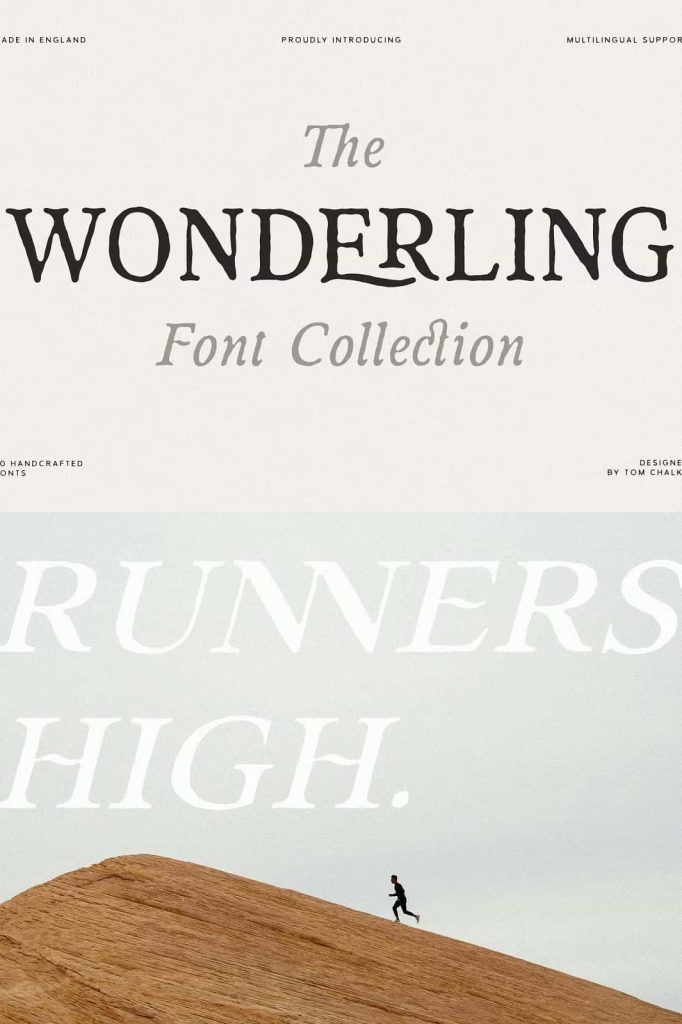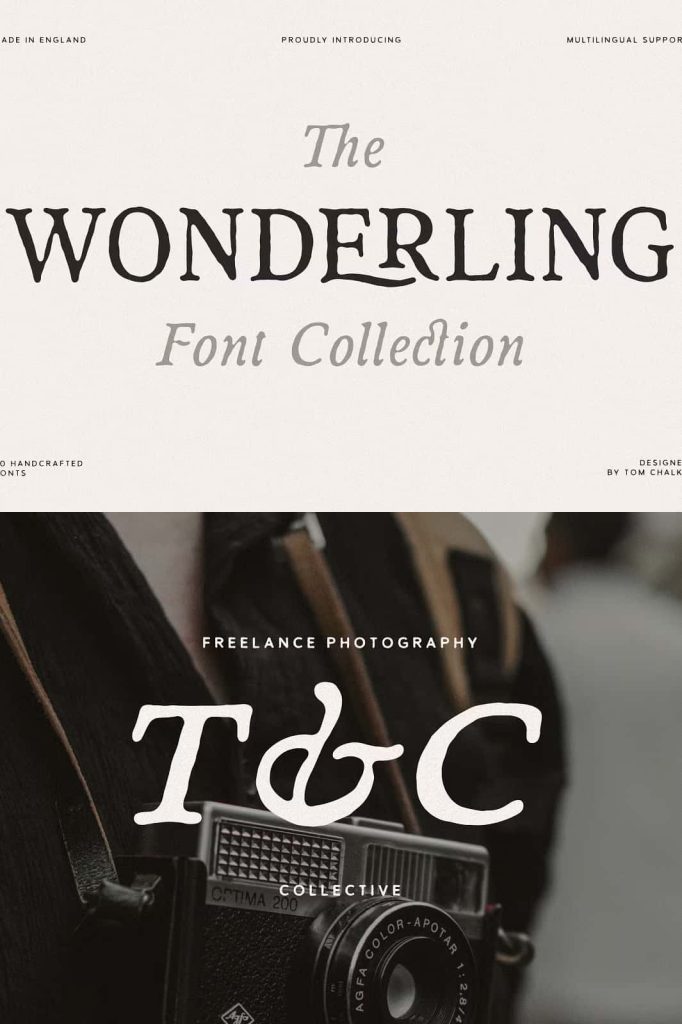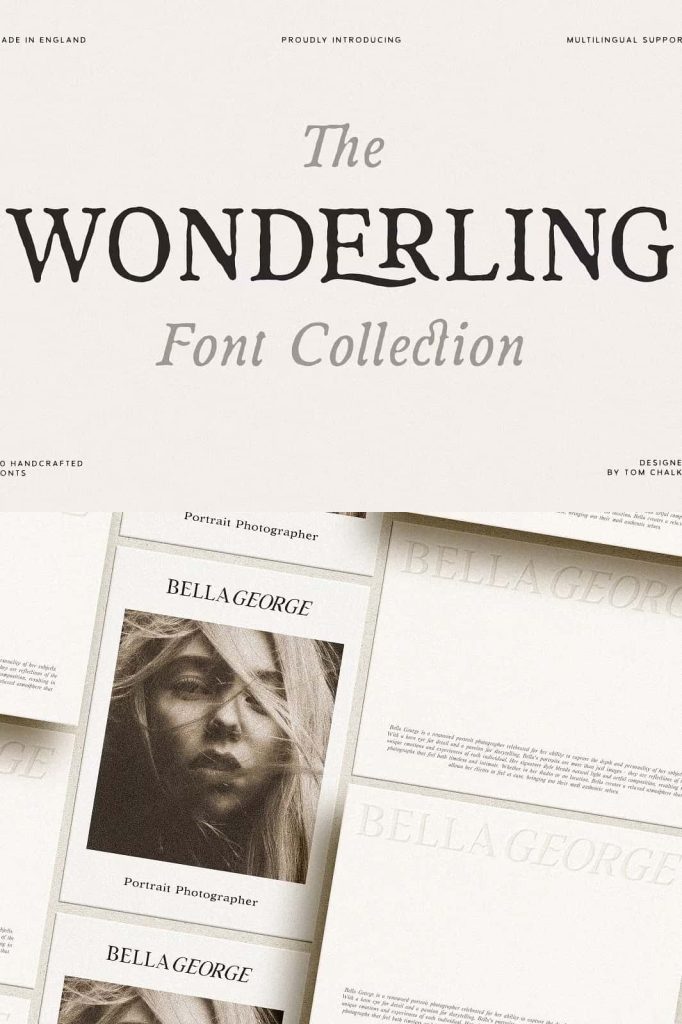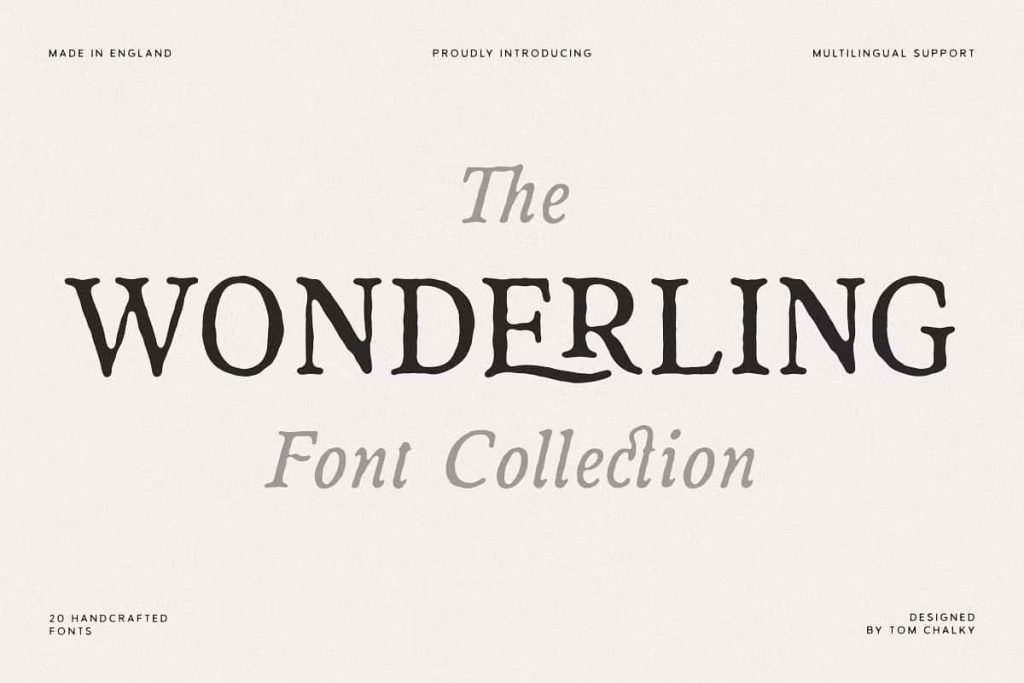
Wonderling: A Timeless Serif Font Collection with Handcrafted Charm
Wonderling brings together the elegance of classic serif typography and the warmth of handcrafted design. This thoughtfully created font collection captures the essence of traditional letterforms while adapting them for modern creative needs. Designers who seek a balance between refinement and personality will find Wonderling a versatile and inspiring solution.
Rather than simply revisiting historical styles, Wonderling actively reinterprets them. It transforms the beauty of classic serif typefaces into a flexible system that works across multiple design contexts. This approach allows designers to create visuals that feel both timeless and fresh, without sacrificing usability or clarity.
Inspired by Classic Serif Traditions
Wonderling draws strong influence from serif typefaces of the past—fonts that shaped editorial design, publishing, and branding for generations. These traditional forms emphasize balance, proportion, and readability. Wonderling preserves these qualities while introducing subtle handcrafted details that add character and uniqueness.
This combination of structure and artistry allows the font to maintain a refined appearance while feeling approachable. Designers can use Wonderling to evoke a sense of heritage, trust, and sophistication in their projects.
Key Features of Wonderling Font Collection
Elegant Serif Structure
Wonderling features well-defined serifs that enhance readability and visual flow. Each letterform follows a balanced structure, ensuring consistency across the entire typeface. This elegance makes the font suitable for both formal and creative applications.
Handcrafted Details
The collection incorporates subtle handcrafted elements that give it a distinctive personality. These details add warmth and authenticity, helping designs feel more personal and engaging. Unlike overly mechanical fonts, Wonderling carries a human touch that resonates with audiences.
Adaptable and Versatile Styles
Wonderling is designed as a flexible collection, allowing designers to explore different visual directions. Its adaptability makes it easy to use across various projects, from minimal layouts to more decorative compositions. This versatility ensures that the font remains relevant in diverse design environments.
Wide Range of Creative Applications
Wonderling performs exceptionally well across multiple design disciplines. Its refined yet approachable style makes it suitable for:
- Logo design and brand identity systems
- Invitations and event stationery
- Packaging for premium or artisanal products
- Editorial layouts and print publications
- Marketing materials and digital content
Because of its balanced design, Wonderling works effectively for both display text and shorter body content. Designers can build cohesive typographic systems using this collection, ensuring consistency throughout their work.
Creating Visual Harmony and Storytelling
Wonderling helps designers establish a strong visual narrative. Its classic foundation communicates reliability and elegance, while its handcrafted elements introduce warmth and individuality. This combination allows designers to tell stories that feel both polished and authentic.
By adjusting size, spacing, and composition, designers can create a wide range of moods. Wonderling adapts easily to formal designs that require sophistication, as well as creative projects that benefit from a more expressive tone.
Why Choose Wonderling for Your Design Projects
Wonderling offers a unique blend of tradition and creativity. It allows designers to draw from the rich history of serif typography while exploring new possibilities in modern design. This balance makes it a valuable tool for professionals who want to create work that stands out without losing a sense of timelessness.
Its versatility reduces the need for multiple typefaces, simplifying the design process while maintaining visual consistency. Designers can rely on Wonderling to deliver clarity, elegance, and personality across different platforms and formats.
Conclusion
Wonderling is more than just a serif font collection—it is a bridge between past and present. With its elegant structure, handcrafted charm, and adaptable design, it empowers designers to create compelling and memorable visuals.
Whether used for branding, invitations, packaging, or editorial work, Wonderling transforms typography into a refined and expressive element. It stands as a timeless choice for designers who value both tradition and innovation.